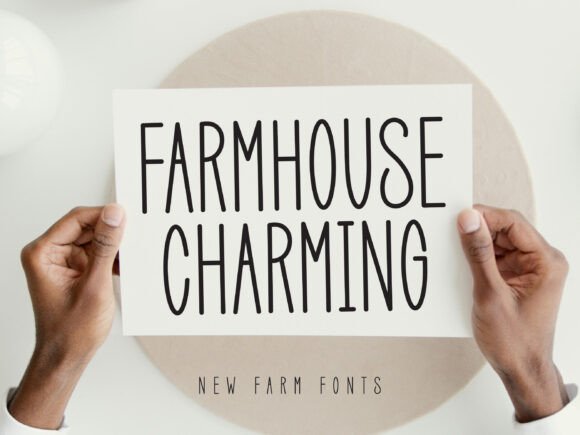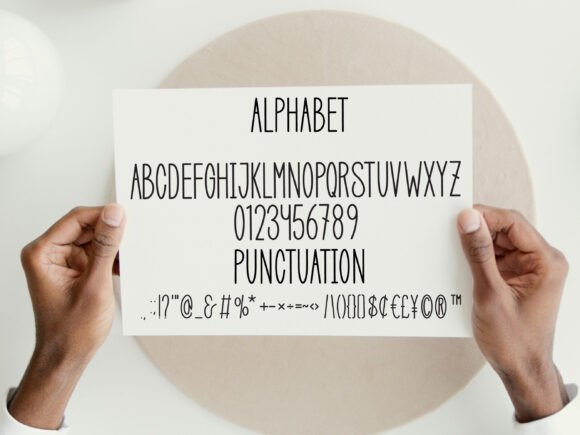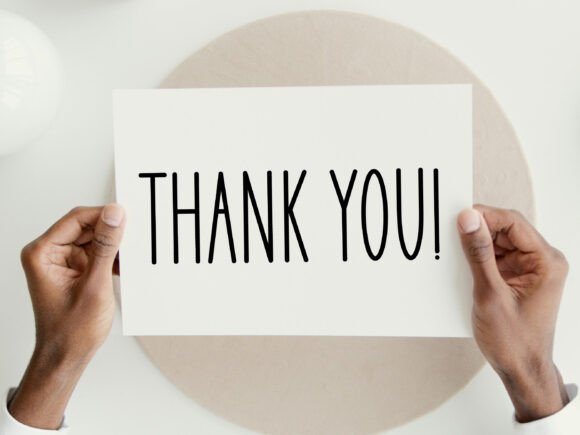
Farmhouse Chraming Font
About the Farmhouse Chraming Font
Introducing the Farmhouse Chraming Font, a beautifully crafted typeface designed to elevate your creative projects. A Farmhouse Charming blend of vintage and modern font that captures the essence of rural living. Ideal for creating elegant designs, Perfect for weeding invitations, home decor, and branding.
Farmhouse Charming’s elegant yet rustic feel makes it perfect for headlines, logos, short-form text on packaging, and signage where its vintage charm can shine. It works exceptionally well for brands focusing on home décor, artisanal goods, or food products emphasizing quality and tradition. Avoid using it for large blocks of body text or UI elements; its decorative nature can hinder readability in extended passages.
This font pairs well with clean sans-serif fonts like Lato or Open Sans for a balanced contrast of modern and vintage styles. For a more rustic feel, consider pairing it with a complementary serif like Playfair Display or Merriweather. A touch of a script font could add a handwritten, personal feel for specific applications.
Its core personality is best described as elegant and friendly, conveying a sense of warmth and nostalgia without being overly fussy or overly playful.
Farmhouse Chraming Font Usage Examples
Farmhouse Chraming Font Example